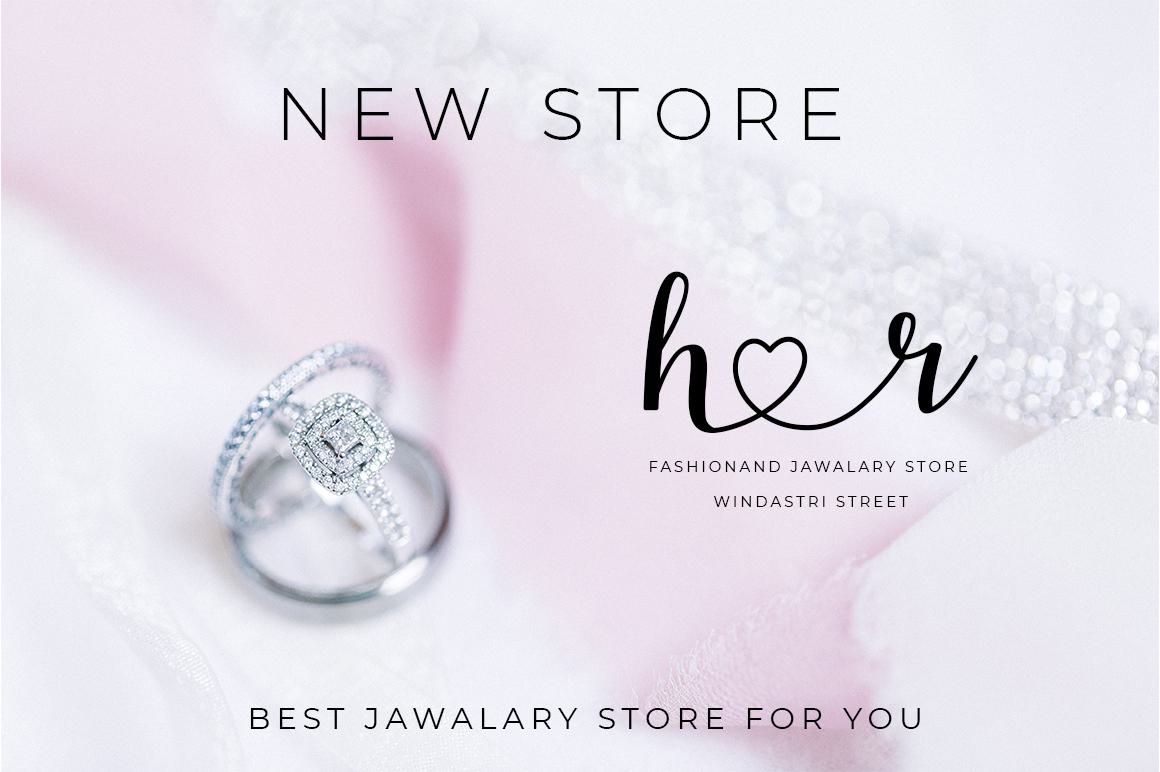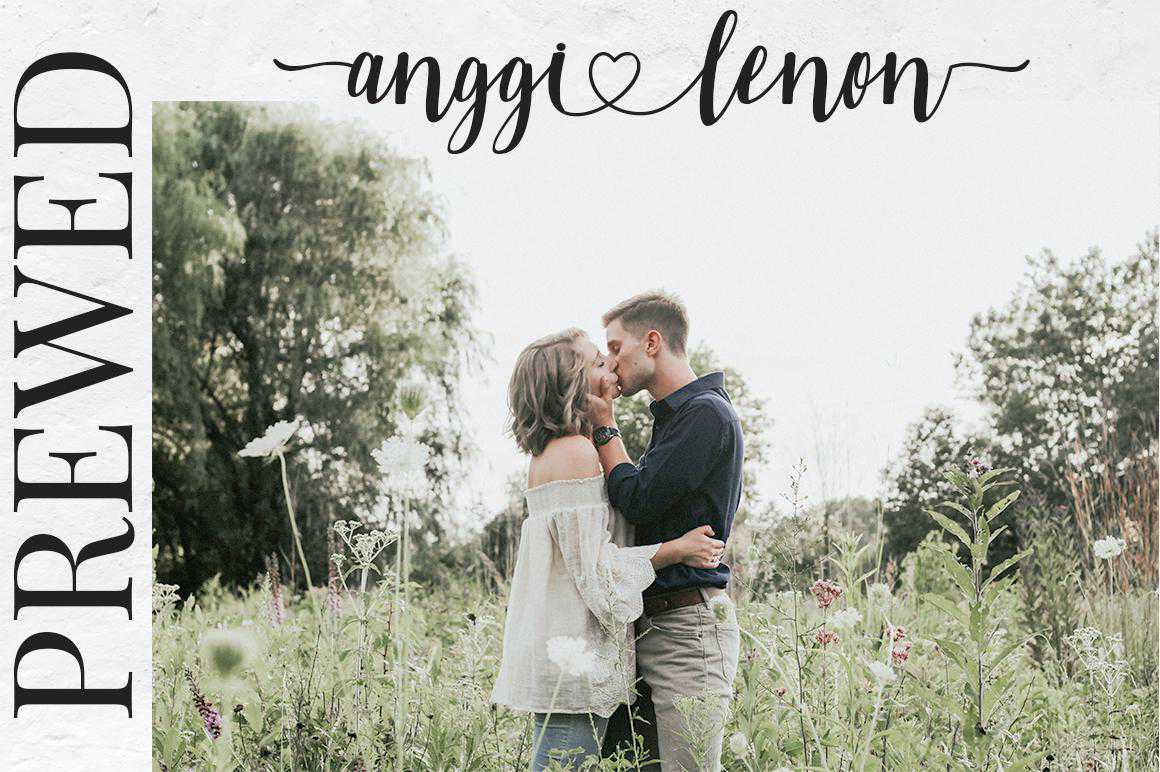
Hannahanniss ScriptFontWith Brush书法样式With Endswash,IscaligraphyScript FontWith Endswash,IscaligraphyScript FontWith Brush书法样式With Endswash,IscaligraphyScript FontWith Endswash,Iscaligraphs ScriptFo,SosialMedia设计、标签、照片、邀请、车站和任何项目。